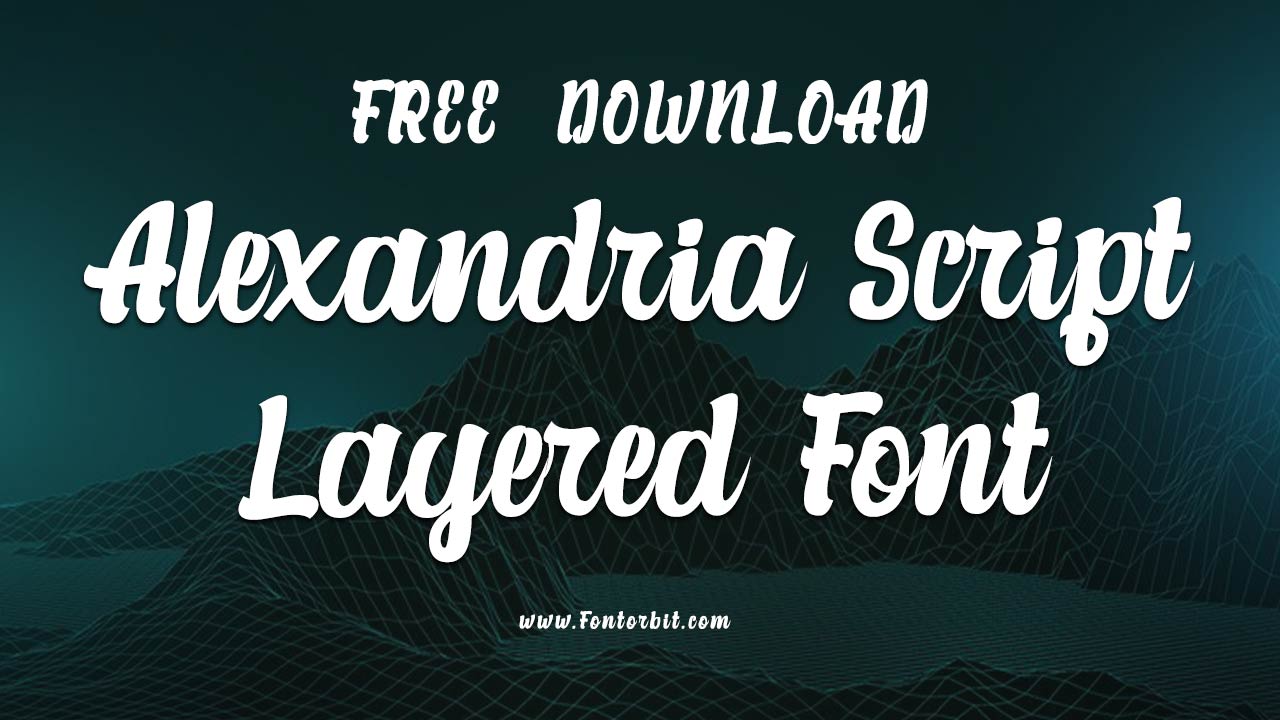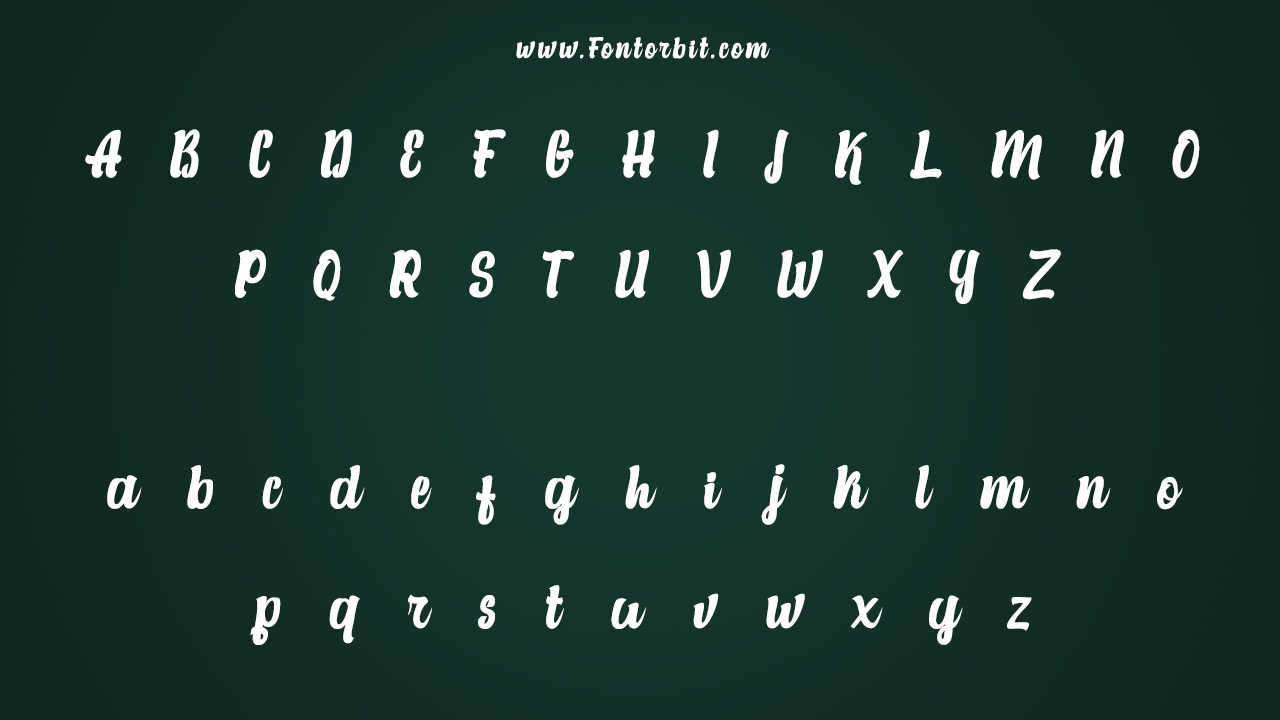
The Alexandria Script Layered Font is a versatile, layered typeface designed by Debut Studio, and published in 2017.
This script font belongs to a multi-layered font family, offering a beautifully crafted handwritten style perfect for various design projects. Alexandria Script captures an elegant yet bold aesthetic, making it an ideal choice for branding and creative content.
Alexandria Script Layered Font Family Includes
The Alexandria Script font family provides a variety of layers that allow designers to create depth and texture in their work. This versatility enhances its usability across different styles and formats.
- Alexandria Script Layered Regular
- Alexandria Script Layered SemiBold
- Alexandria Script Layered Bold
- Alexandria Script Layered Italic
Notable Uses Of Alexandria Script
Alexandria Script is an elegant and sophisticated typeface, often used in high-end designs, invitations, and branding materials. Its layered design offers opportunities for creating unique effects, which makes it particularly suitable for:
- Wedding invitations and event posters
- Luxury branding and packaging
- Social media graphics and blog headers
The rich, elegant strokes of Alexandria Script make it perfect for:
- High-end product labels and packaging
- Invitations, greeting cards, and event flyers
- Stylish logos and branding for creative businesses
The Alexandria Script font is a wonderful choice for designers seeking a layered, elegant handwritten font. Its multiple style layers offer significant creative potential, making it suitable for sophisticated design projects.
Whether used for wedding invitations, brand identity, or packaging, Alexandria Script adds a touch of class and creativity to any design.
1.What Styles Are Available In The Alexandria Script Family?
Regular, Outline, Shadow, and Inline styles are available.
3.What Is The Alexandria Script Typeface?
Alexandria Script is a layered, handwritten font designed by Debut Studio.
6.What Is A Layered Font?
A layered font offers multiple layers (such as shadow or inline) that can be stacked to create depth and effects in typography.
7.How Is Alexandria Script Best Used?
It’s best used for elegant invitations, branding, and any project that requires a sophisticated handwritten touch.